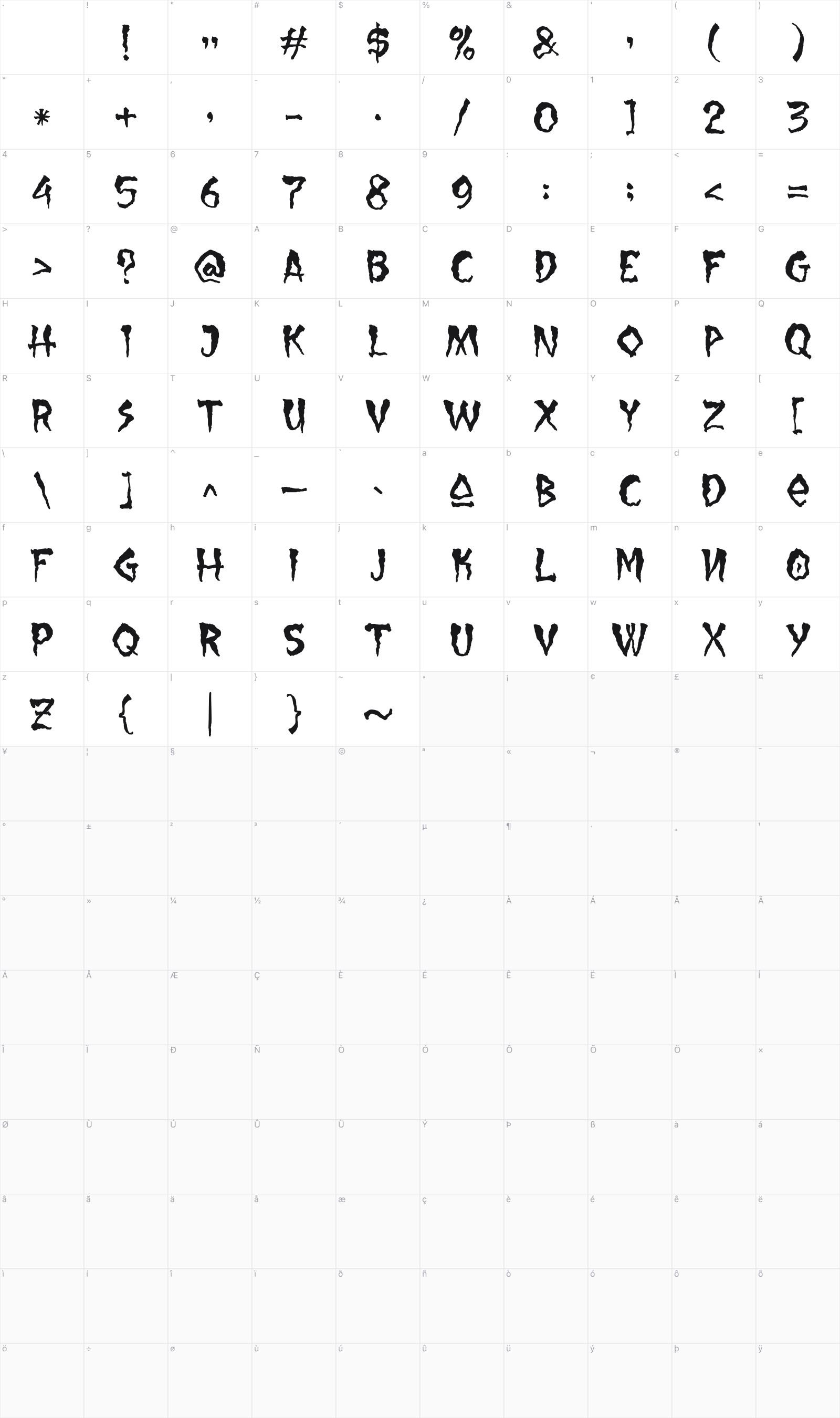
Allarmante
Allarmante is a bold distressed display font with heavily eroded, decayed-looking strokes that give every character a raw, almost corroded texture. The irregular edges and organic construction push it firmly into horror and underground territory. Strong at large sizes where the distressing detail reads clearly.